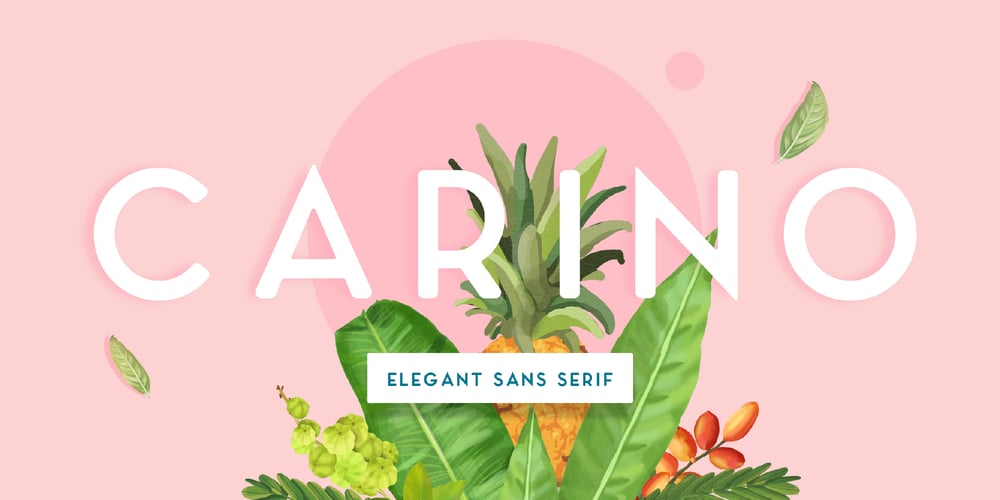
Carino Sans Font Family was designed by Kurt Harahap and published by Kaligra.co. Carino Sans contains 3 styles and family package options. Carino is a stunning classy modern bold all-caps sans serif that comes in three beautiful weights to complement every project you’re working on. Use to create beautiful headings, gorgeous invitations, stunning logos, and so much more!! Perfect for displays, headers, invitations, save the dates, weddings, and so much more, Carino will become a playful staple in your font library!HOW TO ACCESS ALTERNATE CHARACTERSOpen glyphs panel:In Adobe Photoshop go to Window – glyphsIn Adobe Illustrator go to Type – glyphs